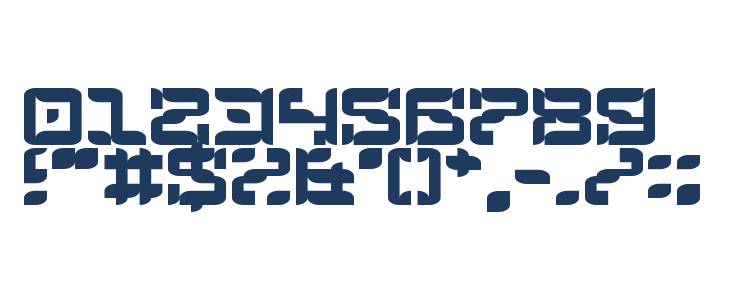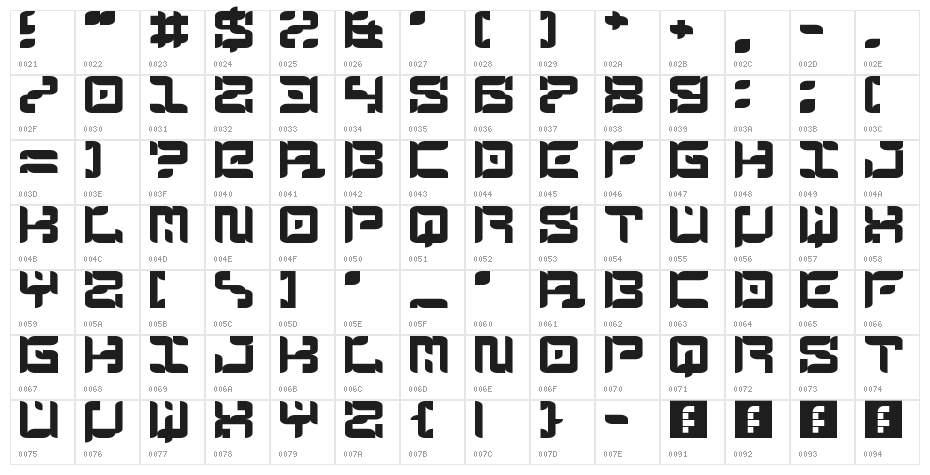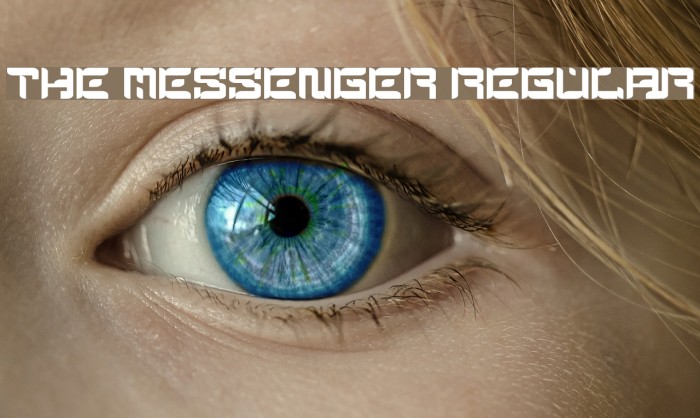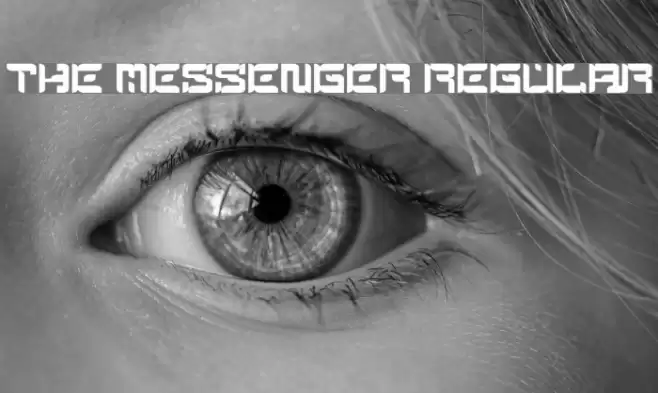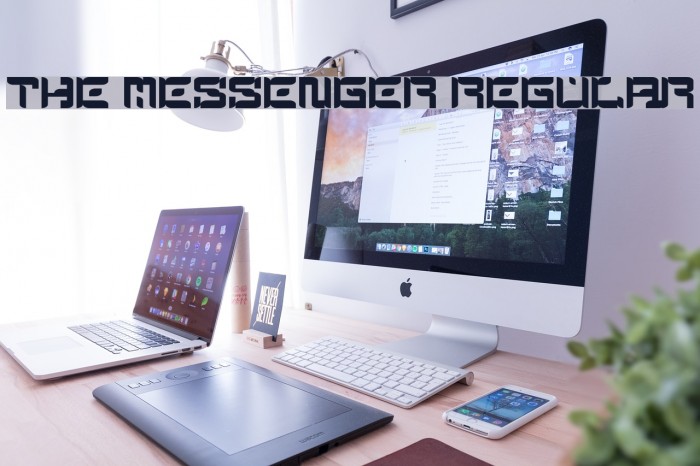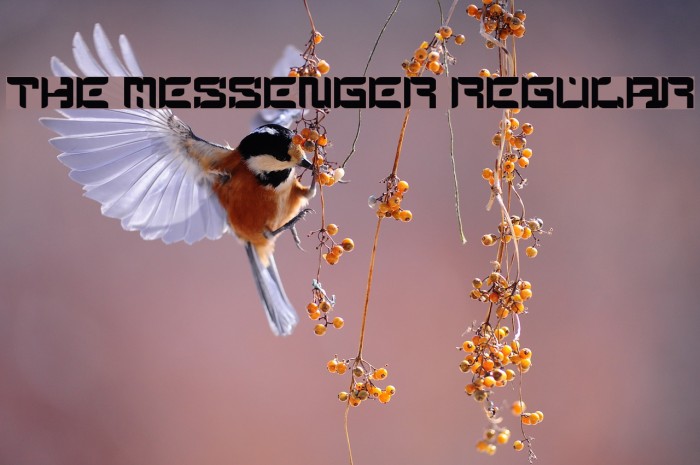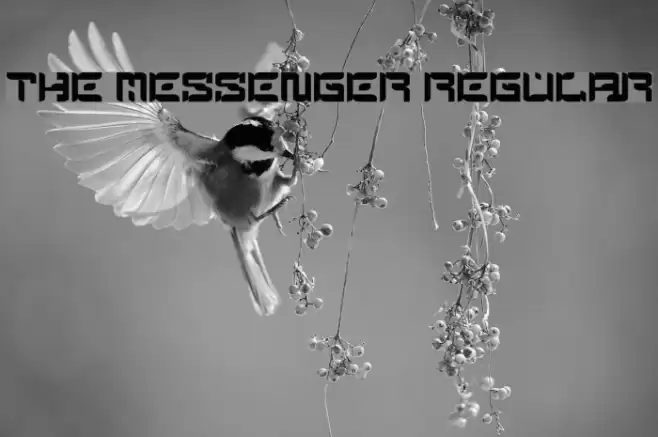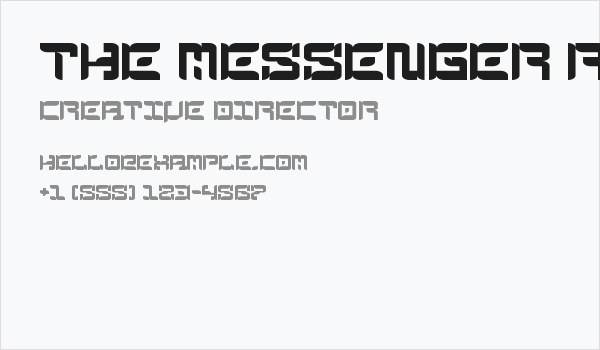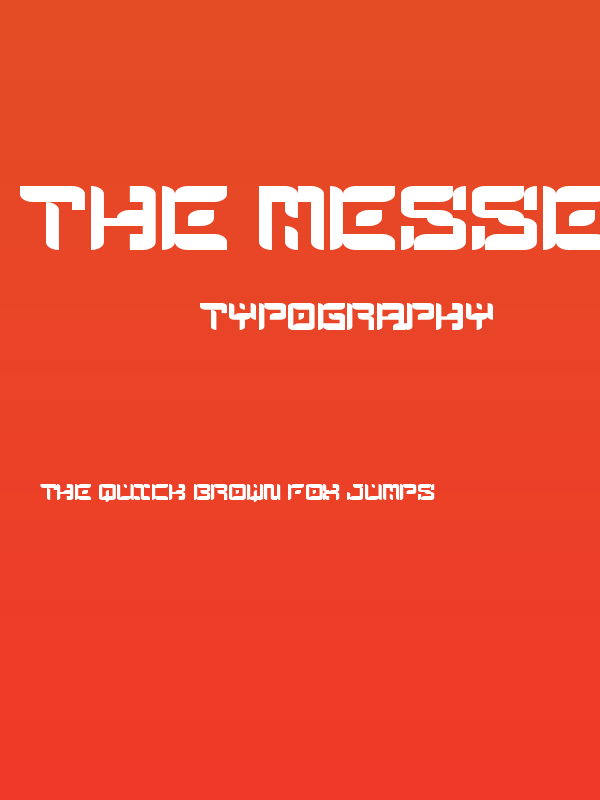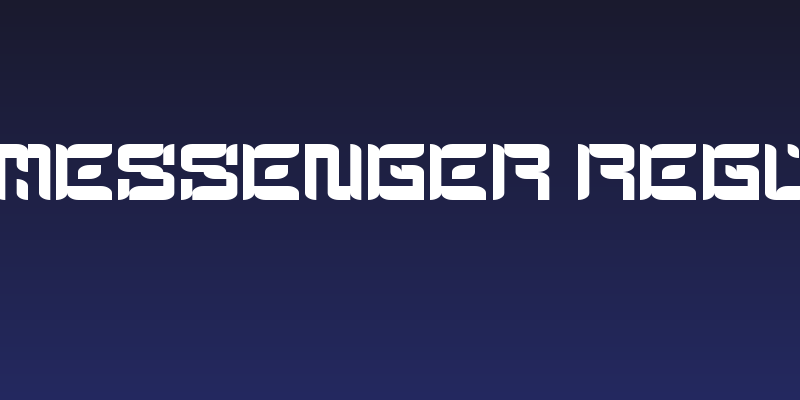
The Messenger Regular Font
The Messenger Regular Description
This font features a bold, futuristic design with a strong geometric structure. Each character is crafted with sharp angles and a block-like appearance, creating a sense of modernity and technological advancement. The uppercase and lowercase letters maintain a consistent style, with the lowercase slightly smaller but equally bold. Numbers and special characters follow the same design principles, ensuring uniformity across all glyphs. The font's unique style makes it stand out, ideal for projects that require a modern and edgy look.